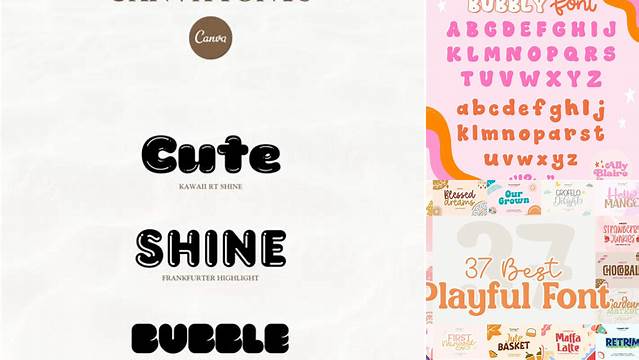
Cute Bubbly Fonts: How To Use Them In Canva
Hey guys! Are you looking to add a dash of fun and whimsy to your designs? Well, you've come to the right place! In this article, we're diving deep into the world of cute bubbly fonts in Canva. Canva is an amazing platform for creating all sorts of designs, from social media graphics to presentations, and choosing the right font can make all the difference. Fonts play a crucial role in conveying the tone and personality of your message. A bubbly font can instantly make your design feel more approachable, friendly, and playful. So, let's explore how to find and use these delightful fonts in Canva to make your projects pop!
Why Use Bubbly Fonts?
When it comes to design, the font you choose speaks volumes. Bubbly fonts, with their rounded edges and playful shapes, evoke a sense of joy, innocence, and fun. They are perfect for projects that target a younger audience, such as children’s books, birthday invitations, or social media posts for toy brands. But don't think they're just for kids! Bubbly fonts can also add a touch of lightheartedness to any design, making it more engaging and memorable. Imagine a flyer for a summer party or a poster for a craft fair – a bubbly font can instantly grab attention and set a cheerful tone. The versatility of these fonts lies in their ability to break the monotony of traditional, serious typefaces. They can make your message feel more approachable and less formal, which is great for connecting with your audience on a personal level. Choosing the right font is about more than just aesthetics; it's about creating an emotional connection with your viewers. Bubbly fonts excel at this, bringing a sense of fun and playfulness to any project. Furthermore, using unique fonts like bubbly ones can help your designs stand out in a sea of sameness. In a world where visual content is king, making a lasting impression is crucial, and the right font can be your secret weapon.
Top Bubbly Fonts in Canva
Canva boasts a vast library of fonts, and thankfully, there are plenty of cute bubbly fonts to choose from. Let's dive into some of the top picks that can add that playful touch to your designs. One standout is 'Bubblegum Sans', a font that truly lives up to its name. It’s round, bouncy, and full of character, making it ideal for headings and titles. Imagine using it for a children's birthday invitation or a poster for a fun event – it instantly brings a smile to your face. Another fantastic option is 'Luckiest Guy', a bold and chunky font that exudes confidence and cheerfulness. This font is perfect for making a statement, whether it's on a social media graphic or a promotional banner. Its thick strokes and rounded corners make it highly readable and visually appealing. Then there's 'Cherry Swash', a font that combines bubbly elements with a touch of elegance. It features playful curves and swashes, making it a great choice for projects that need a bit of sophistication while still maintaining a fun vibe. Think of using it for a wedding invitation with a whimsical theme or a blog header that needs a friendly touch. 'Patrick Hand' is another excellent choice, mimicking the look of handwritten text with a playful twist. This font is perfect for adding a personal touch to your designs, making them feel more authentic and relatable. It’s great for greeting cards, thank you notes, or any project where you want to convey a sense of warmth and sincerity. Lastly, don't overlook 'Amatic SC', a condensed sans-serif font with a bubbly personality. While it's narrower than some of the other options, it still maintains a playful feel, making it ideal for headlines and subheadings where space is limited. Exploring these fonts within Canva will reveal their unique characteristics and how they can enhance your designs. Each font brings its own flavor, so experimenting with different options is key to finding the perfect match for your project. Remember, the right font can transform a simple design into something truly special, and Canva’s selection of bubbly fonts offers plenty of opportunities to do just that.